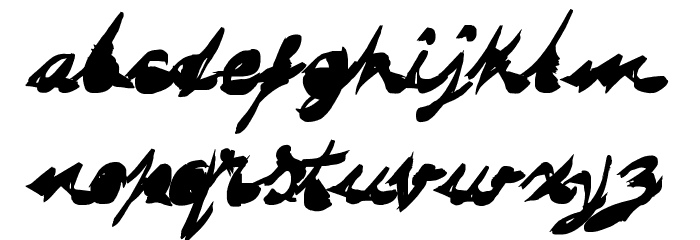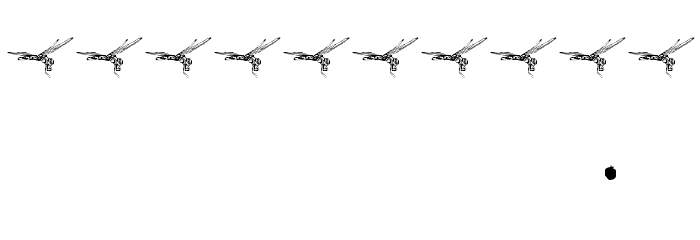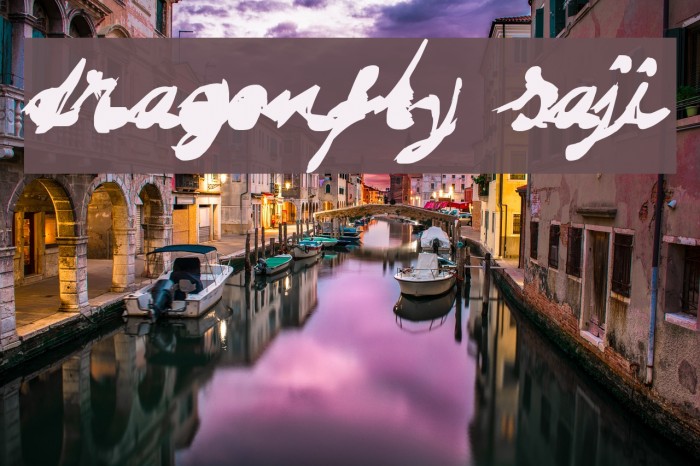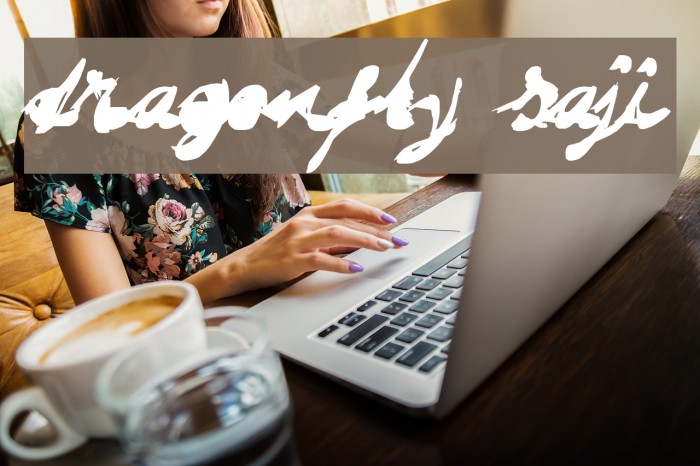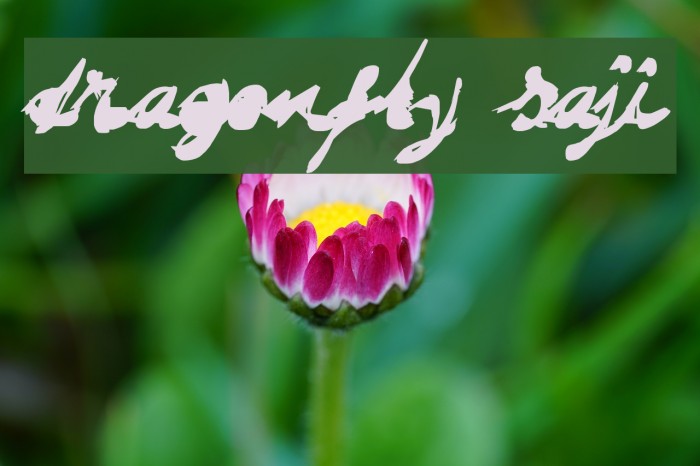
DRAGONFLY saji Font
This font features a bold, expressive script style with a dynamic and energetic flow. The letters are interconnected, creating a sense of continuity and movement. The strokes are thick and have a high contrast, giving the font a dramatic and artistic appearance. The overall design is reminiscent of calligraphy, with sharp edges and fluid curves that add a touch of elegance and flair. The font's unique style makes it stand out, making it suitable for creative and artistic projects.
A bold, expressive script font with high contrast and dynamic flow.
- Proposed Projects: Ideal for branding, logo design, invitations, and artistic projects that require a touch of elegance and creativity.
- Character Spacing: Tight
- Use Case: Logos, Invitations, Artistic projects